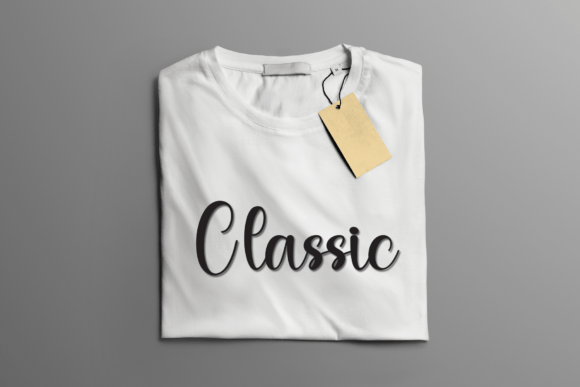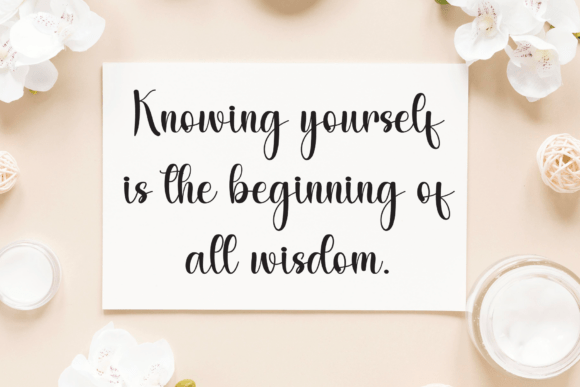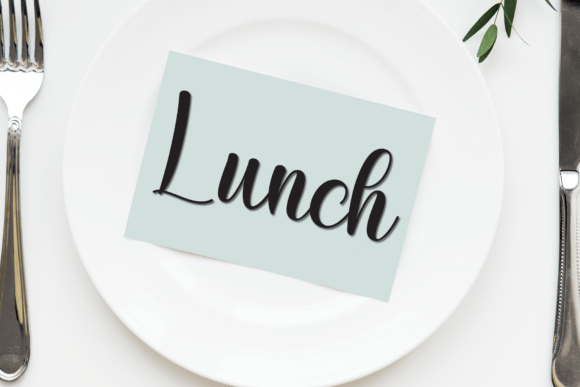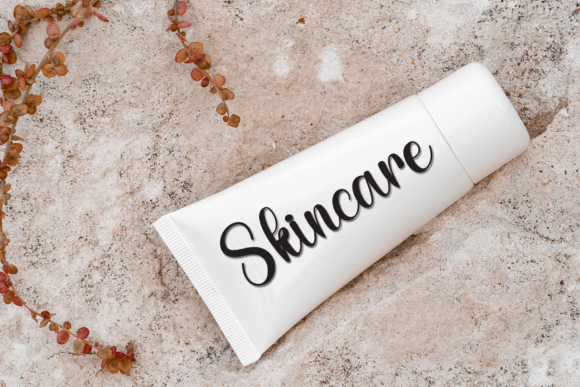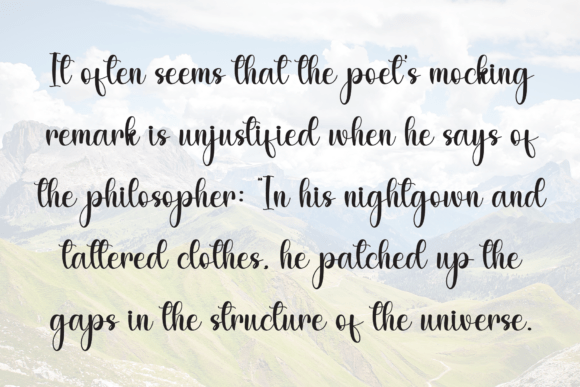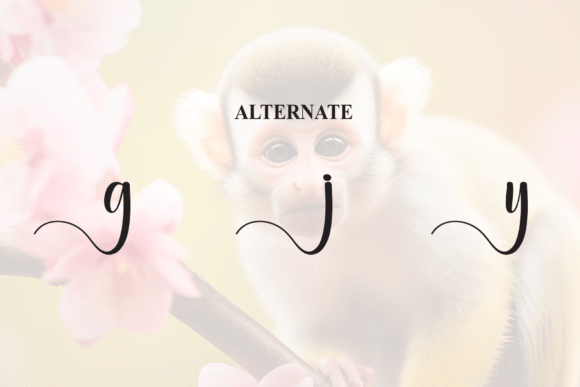
Baby Monkey Font: A Playful and Feminine Script Font for Your Creative Projects
Are you looking for a font that exudes a sense of sweet sophistication and playfulness? Look no further than the Baby Monkey Font. This modern script font is perfect for designers and crafters who want to add a touch of femininity and charm to their creations. In this article, we’ll dive into the features and benefits of the Baby Monkey Font, and explore how you can use it to elevate your designs.
A Beautifully Bouncy Rhythm
The Baby Monkey Font boasts a beautifully bouncy rhythm that is sure to capture the attention of your audience. Its thick, fluid strokes and high, sweeping ascenders and descenders give it a dynamic, energetic presence that is perfect for headlines, logos, and other design elements. The rounded terminals and smooth connections contribute to its overall warmth and approachability, making it an excellent choice for feminine branding, baby shower invitations, and children’s apparel.
Feminine Charm and Sophistication
The Baby Monkey Font is designed to convey a sense of sweet sophistication and femininity. Its robust weight ensures visibility, making it excellent for headlines and logos, while its natural, flowing style keeps it feeling personalized. This font is perfect for designers and crafters who want to create designs that feel energetic, sweet, and beautifully custom-written.
Perfect for a Variety of Creative Projects
The Baby Monkey Font is versatile and can be used for a variety of creative projects, including:
- Feminine branding: Add a touch of elegance and sophistication to your brand with this beautiful script font.
- Baby shower invitations: Create adorable and playful invitations that set the tone for a joyful celebration.
- Children’s apparel: Design cute and colorful clothing and accessories for kids with this fun and playful font.
- Blog design: Add a touch of personality to your blog with this beautiful script font.
- Romantic stationery: Create beautiful and elegant stationery that is perfect for weddings, anniversaries, and other special occasions.
- Unique and playful design that is sure to capture attention.
- Feminine charm and sophistication that is perfect for a variety of creative projects.
- Robust weight ensures visibility and legibility.
- Perfect for designers and crafters who want to create designs that feel energetic, sweet, and beautifully custom-written.